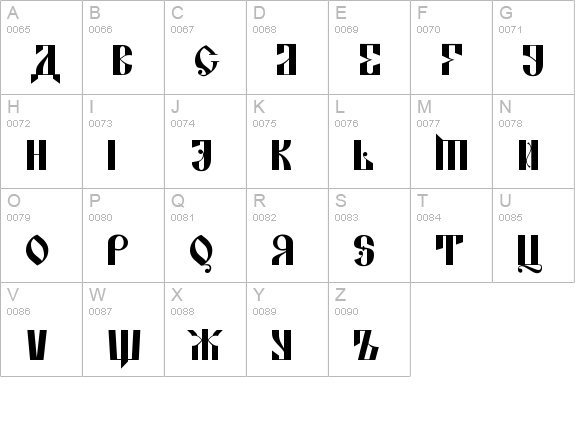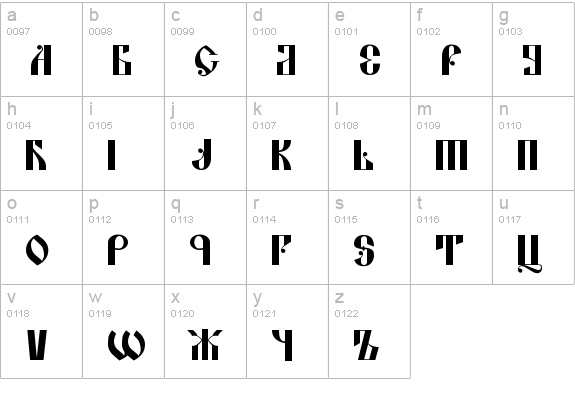
Kremlin Alexander Bold is a strong, high-contrast variant in the Kremlin typeface family \xE2\x80\x94 well suited to headlines, attention-grabbing titles, and strong calls-to-action.
Kremlin Alexander Bold font is a striking and bold typeface that exudes power and sophistication. With its clean lines and strong presence, this font is perfect for making a bold statement in any design project. The Kremlin Alexander Bold font is meticulously crafted to enhance readability and legibility, making it ideal for headlines, titles, logos, and other display purposes. Its bold and impactful design captures attention and commands authority, making it a go-to choice for designers looking to make a lasting impression. One of the best features of the Kremlin Alexander Bold font is that it is freely available to download at FontsMarket.com. This means that you can easily access and utilize this impressive font without any cost. Whether you are a professional designer or a DIY enthusiast, this free font offers you a valuable resource to elevate your designs to the next level. With its versatility and boldness, the Kremlin Alexander Bold font can be used in various design projects, such as posters, advertisements, packaging, branding, and more. Its timeless appeal ensures that your designs will stand out and make a lasting impact on your audience. So, if you are looking for a powerful and striking font that is both visually captivating and freely available, look no further than Kremlin Alexander Bold. Download it today at FontsMarket.com and unlock the potential to create stunning designs that leave a lasting impression.